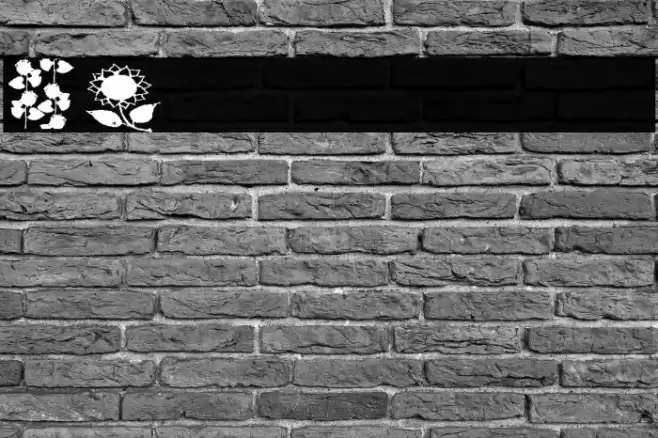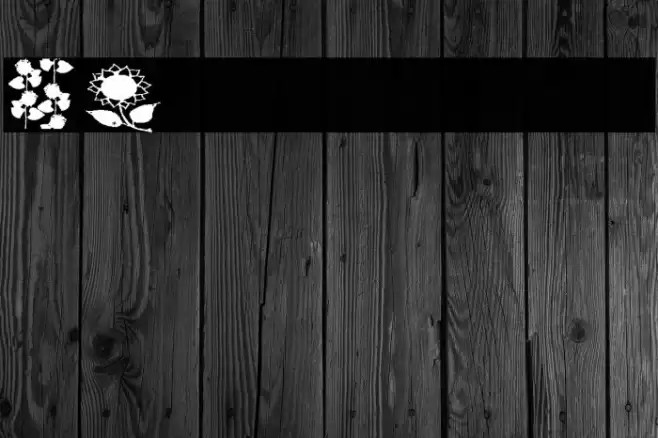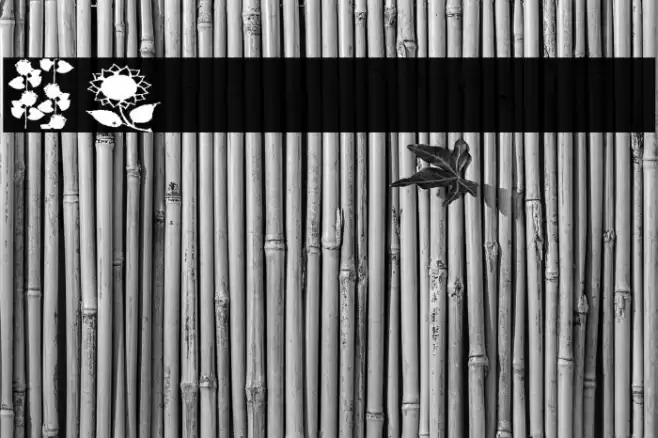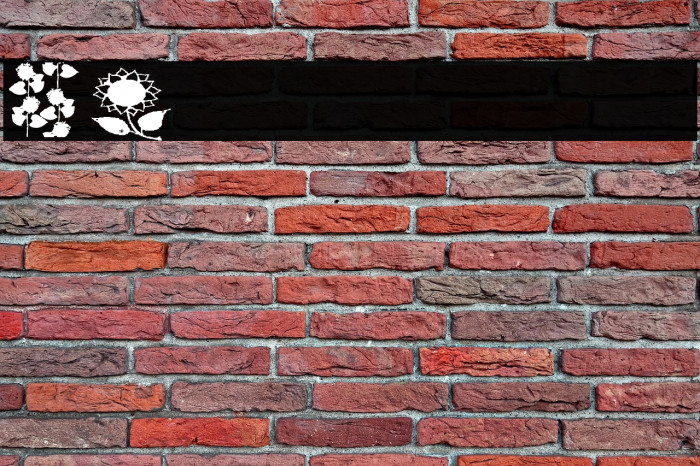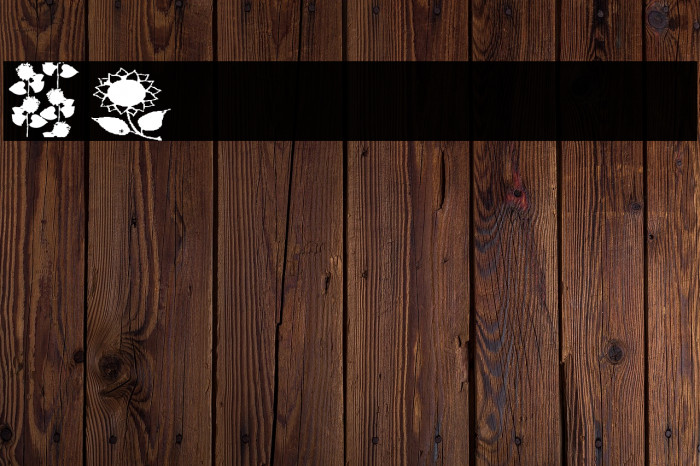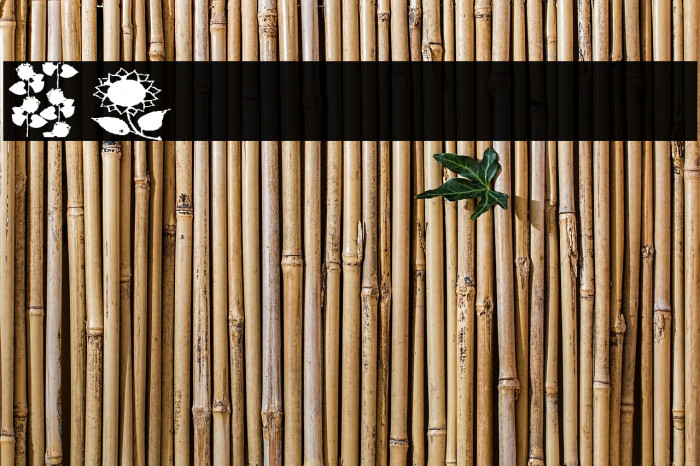
AEZsunflowers Font
AEZsunflowers Description
A decorative dingbat set featuring various sunflower illustrations, each glyph representing a unique sunflower design in black and white silhouette or outline style.
A collection of sunflower-themed decorative glyphs from Dingbats fonts.
- Proposed Projects: Greeting cards, scrapbooking, decorative borders, invitations, nature-themed posters, and craft projects.
- Overall Style: Decorative, Nature-inspired
- Use Case: Decorative elements, Borders, Icons